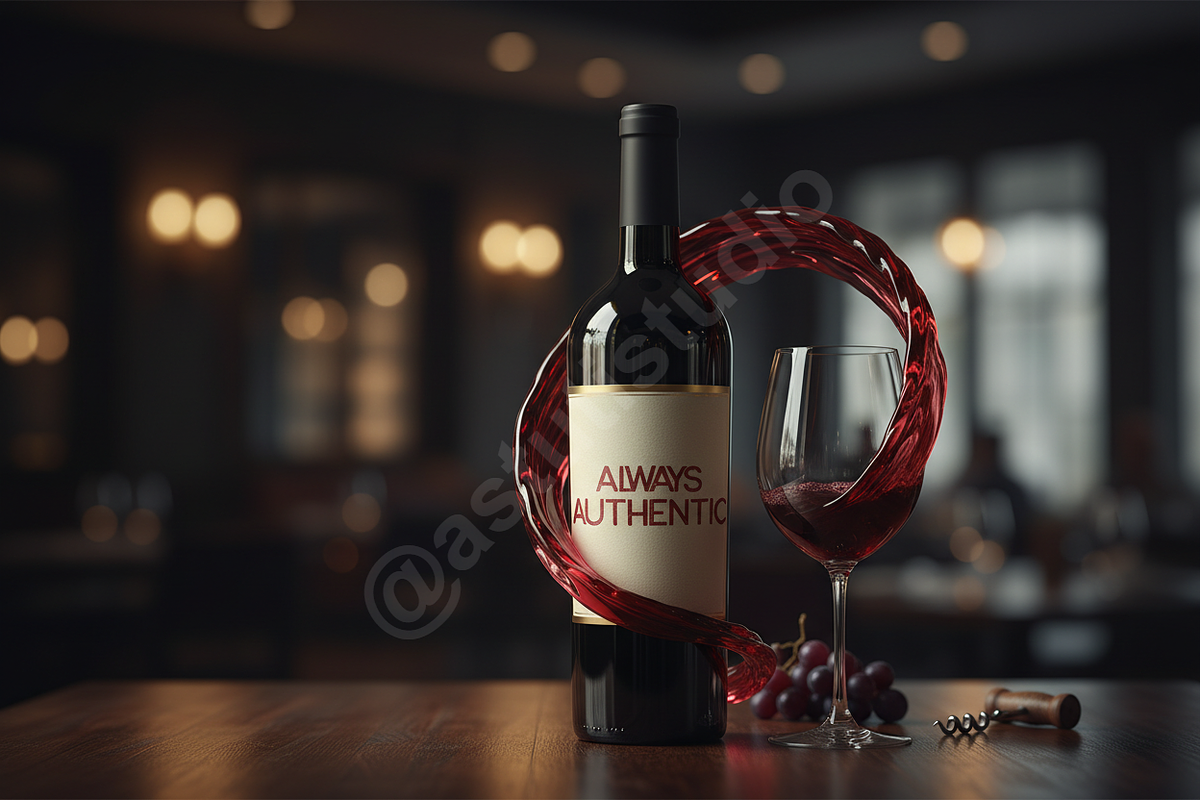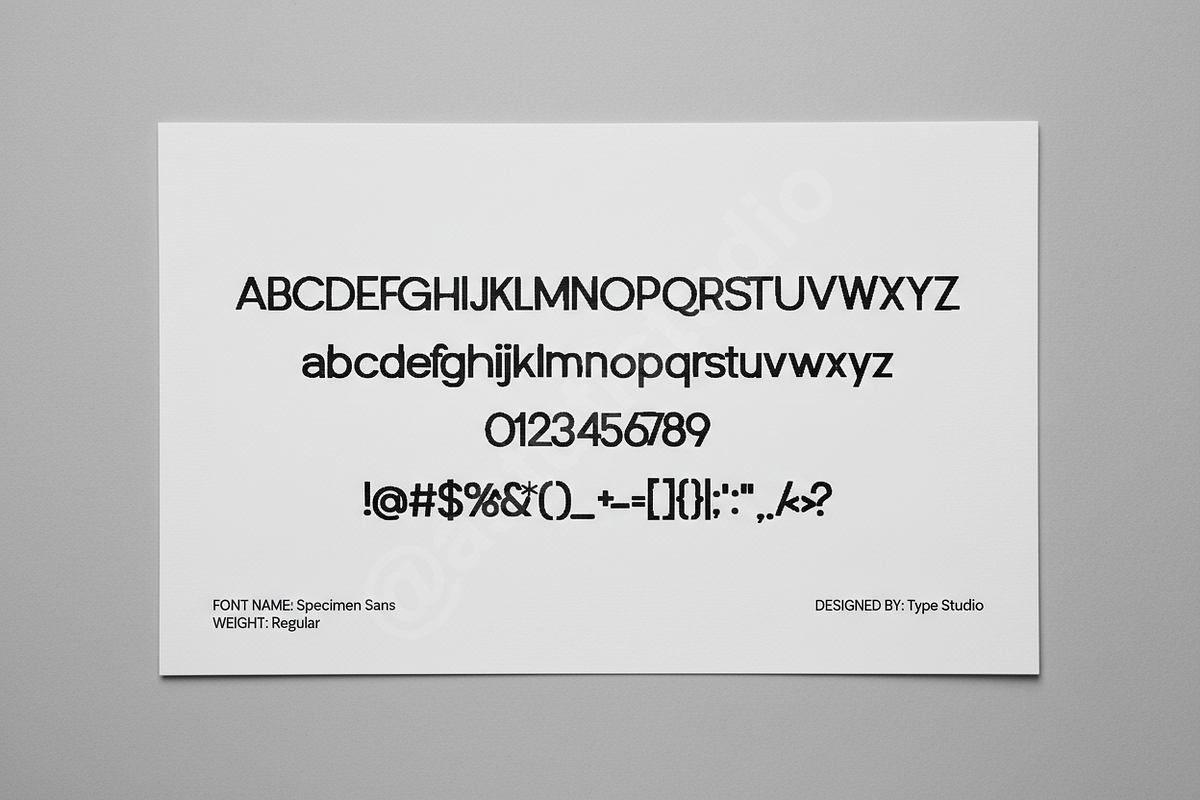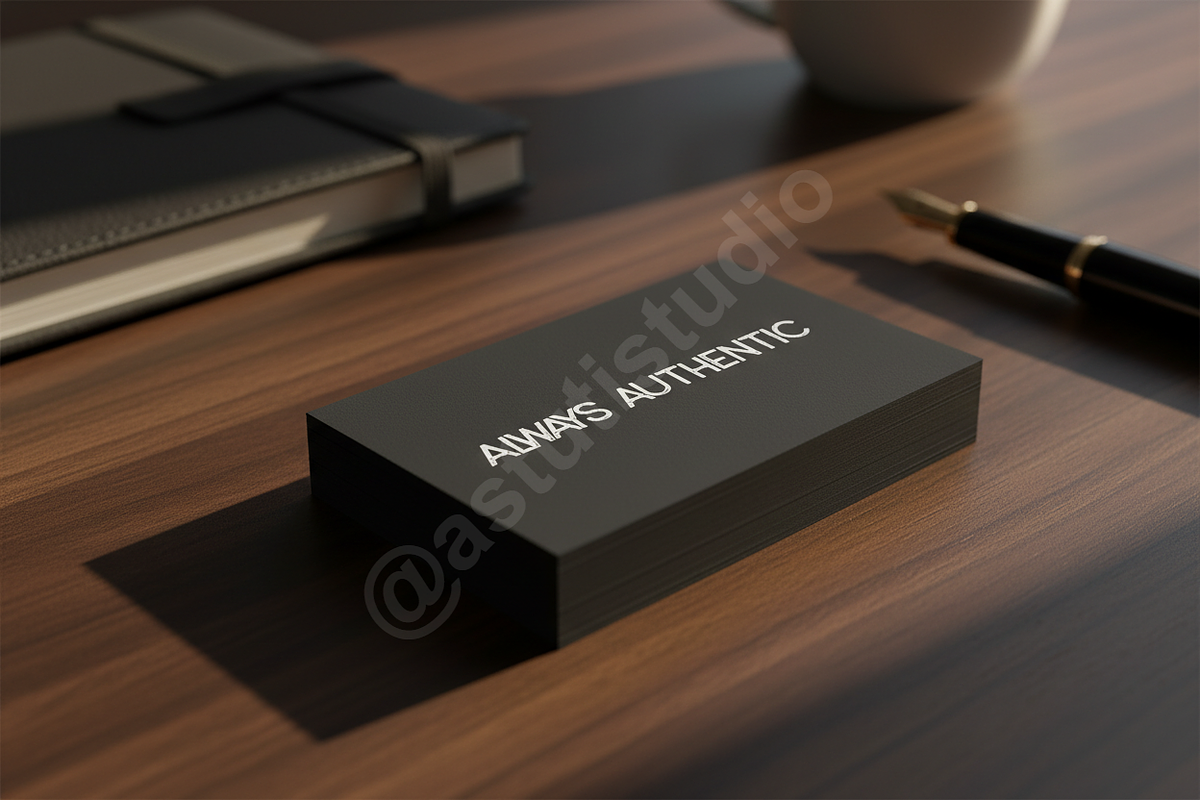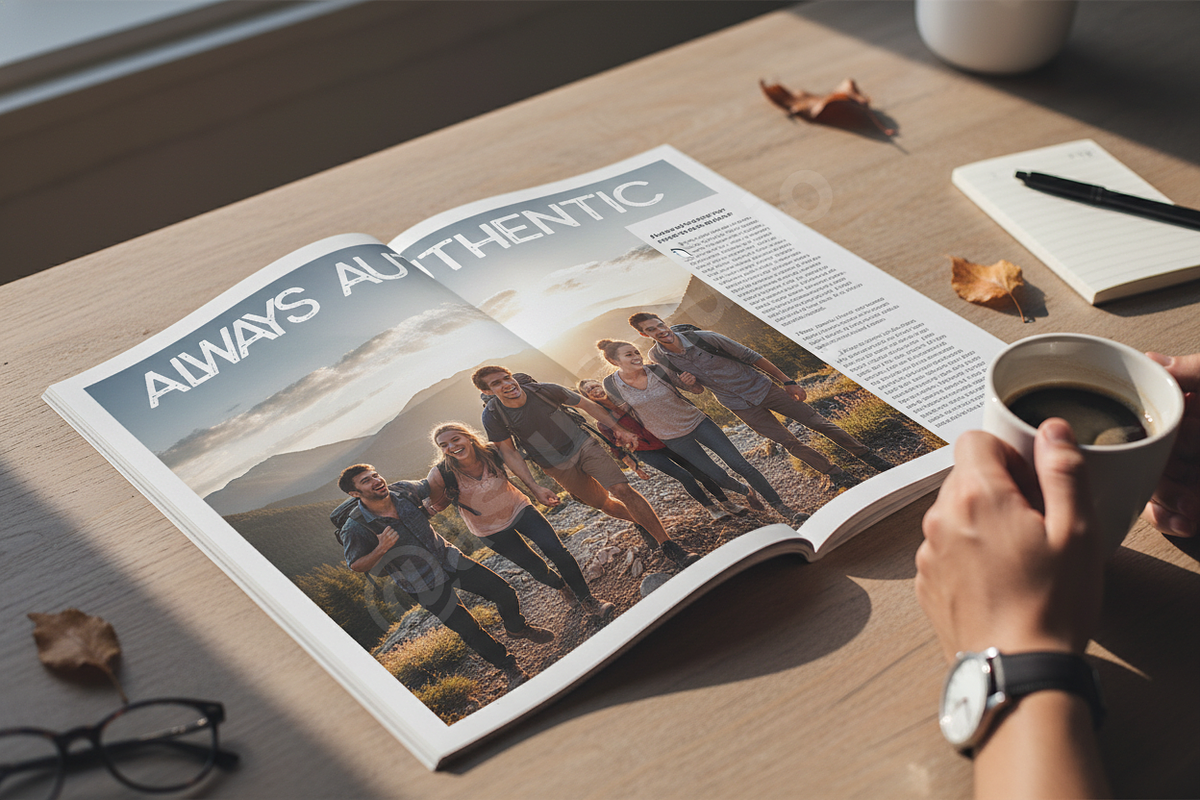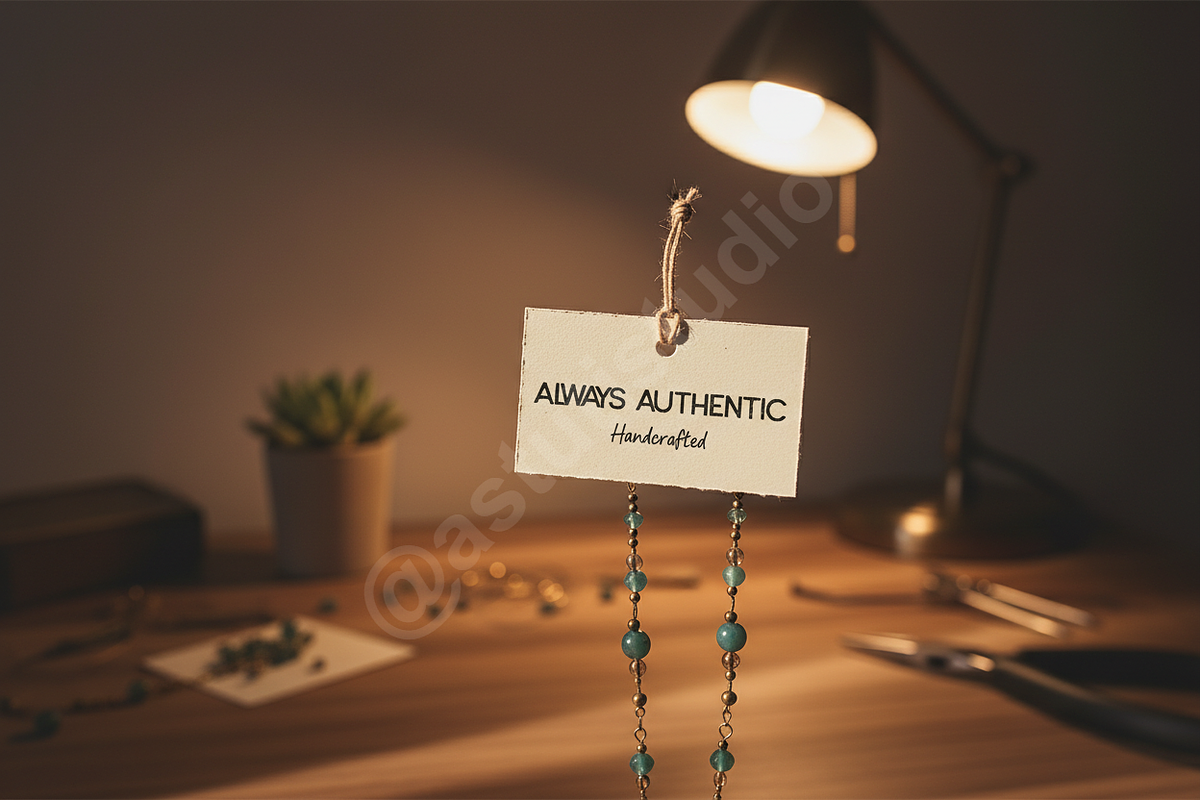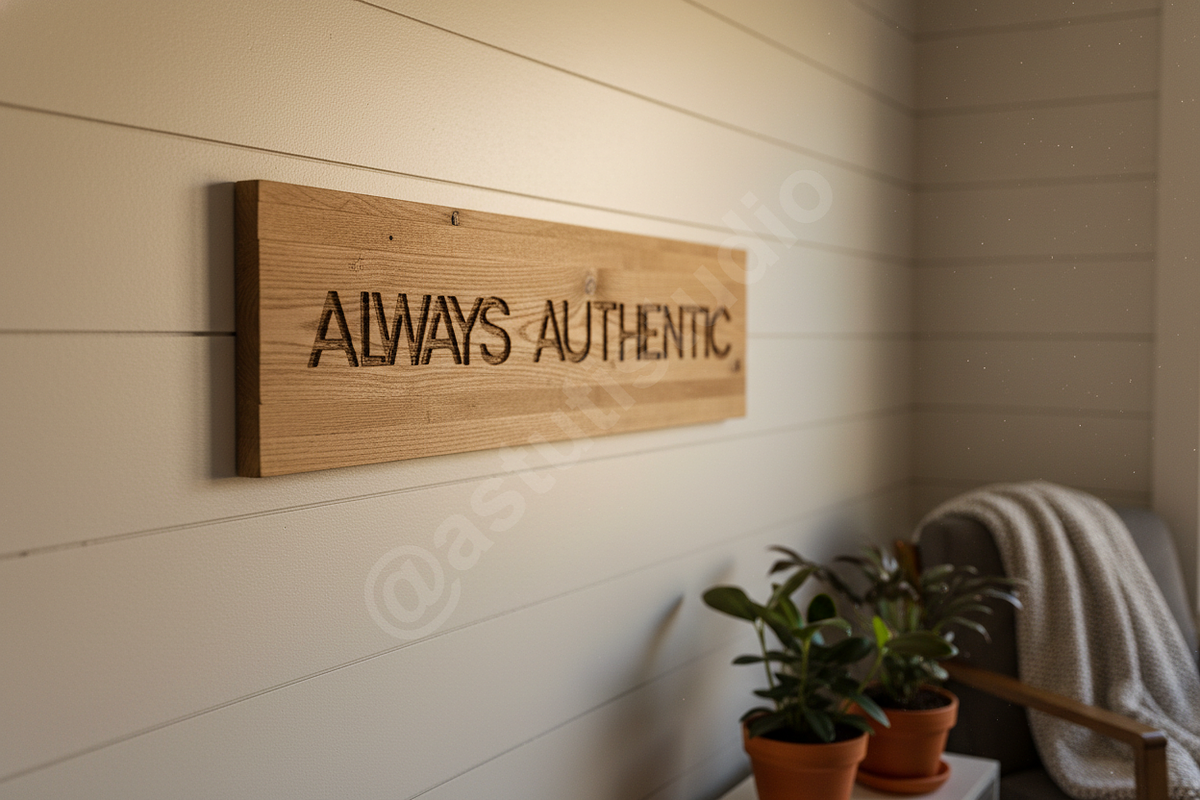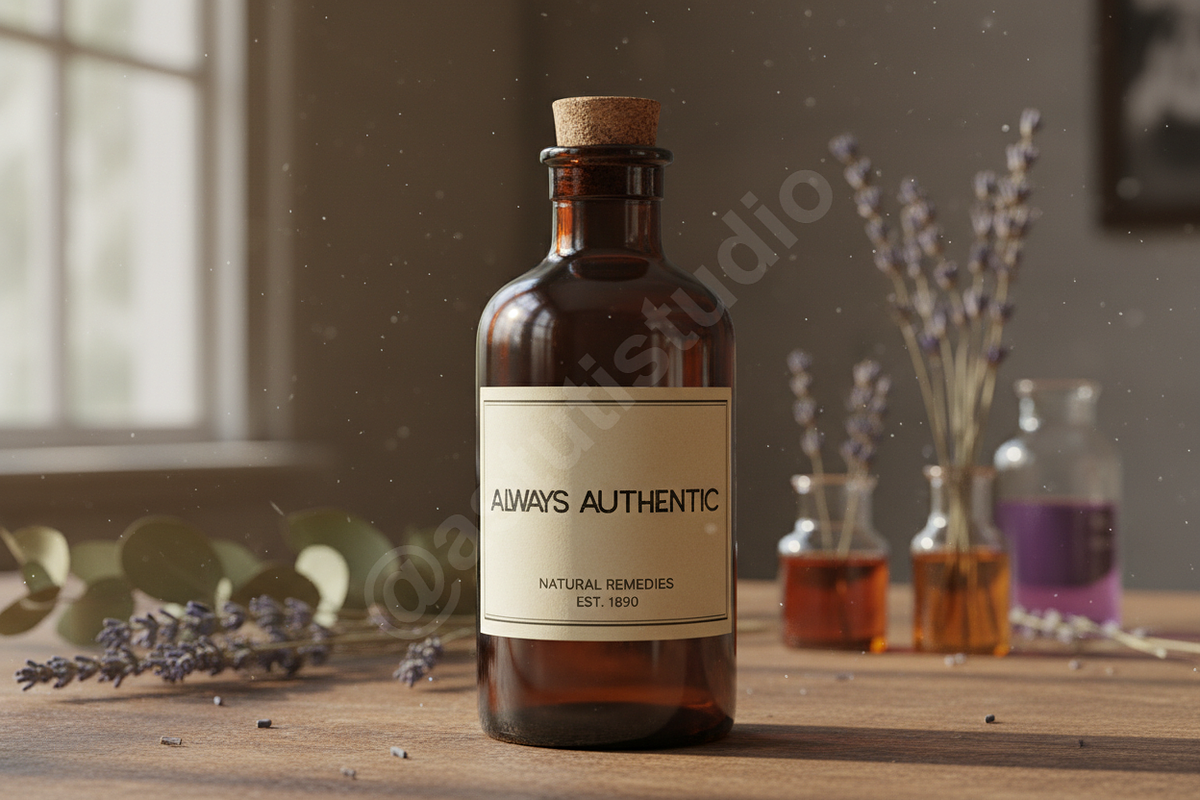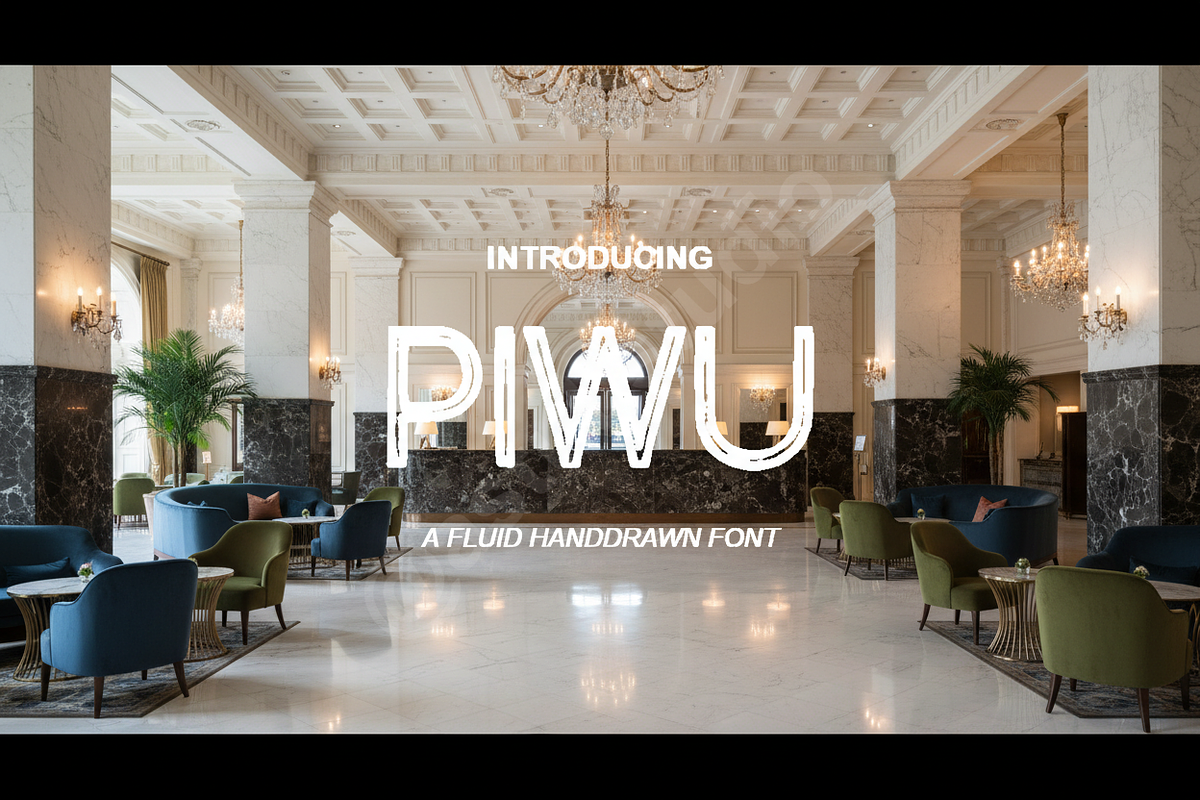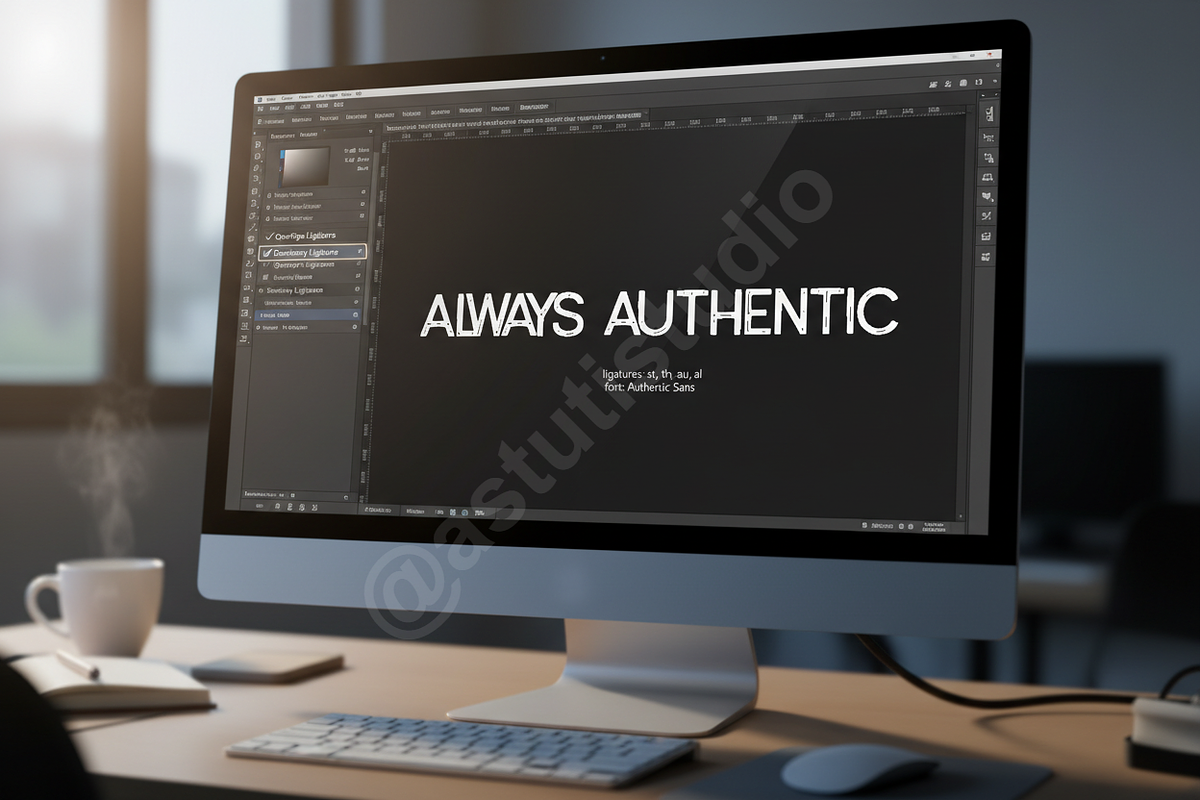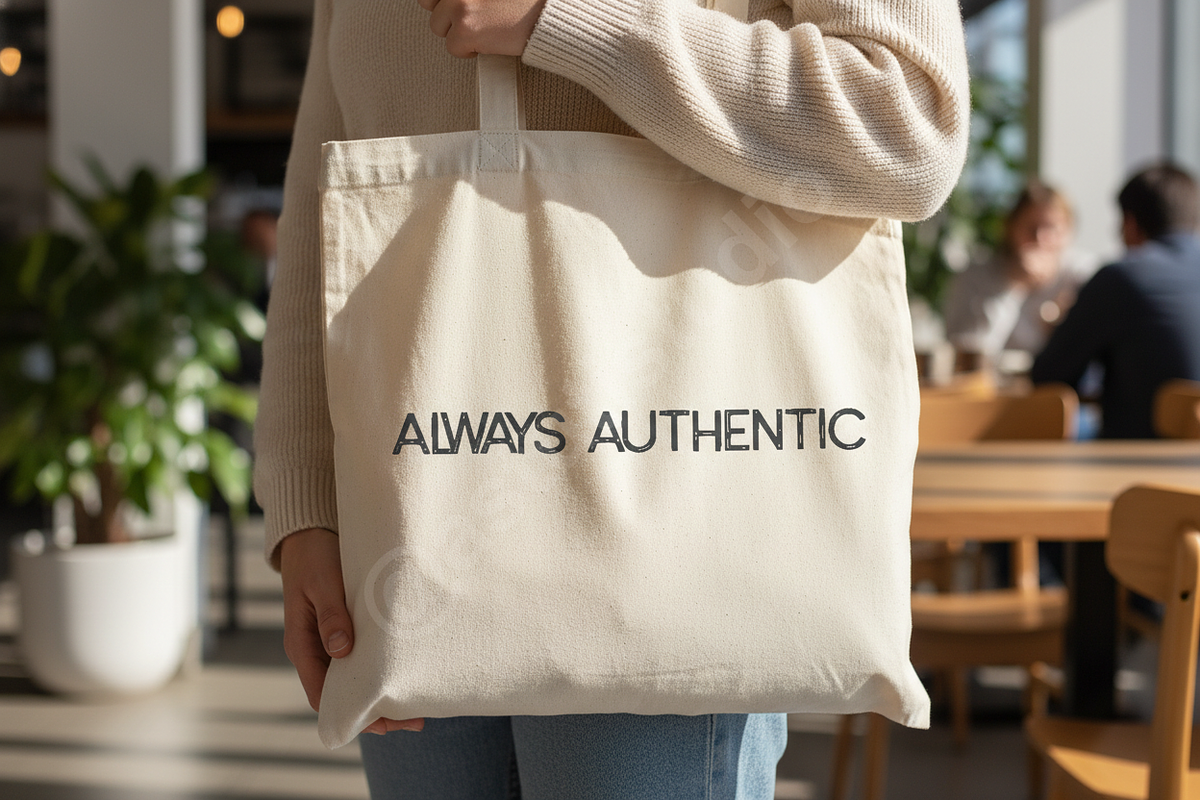
Piwu - Sophisticated Luxury Serif Fo
Piwu is an elegantly crafted serif typeface that embodies the essence of luxury and modern minimalism. Designed with high-contrast strokes and refined curves, it brings a sense of prestige and timeless sophistication to any creative endeavor. Whether you are building a premium identity or designing for a high-fashion editorial, Piwu provides the aesthetic depth required for high-end results.
- High-contrast letterforms for a premium feel
- Extensive ligature set for unique typography
- Comprehensive multilingual support
- Perfectly balanced kerning for professional editorial layouts
- Clean and minimalist aesthetic suitable for digital and print
- Full set of uppercase and lowercase letters
- Complete numerals and punctuation
- Luxury branding and identity systems
- High-end editorial and magazine design
- Sophisticated social media content and storytelling
- Fashion and lifestyle advertising
- Wedding invitations and event stationery